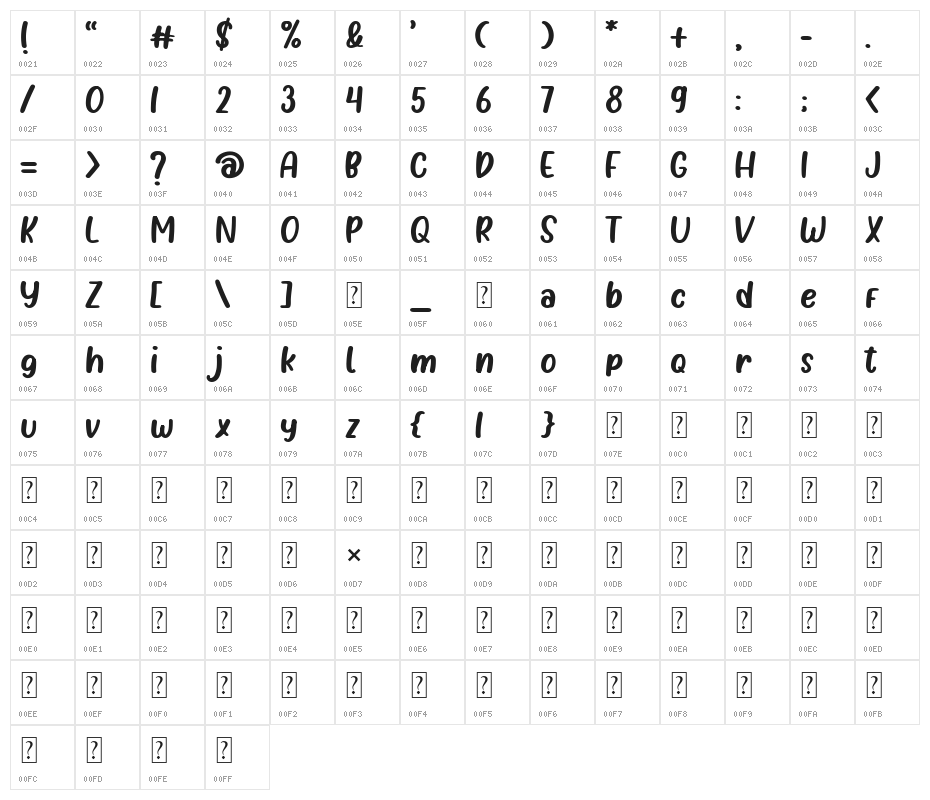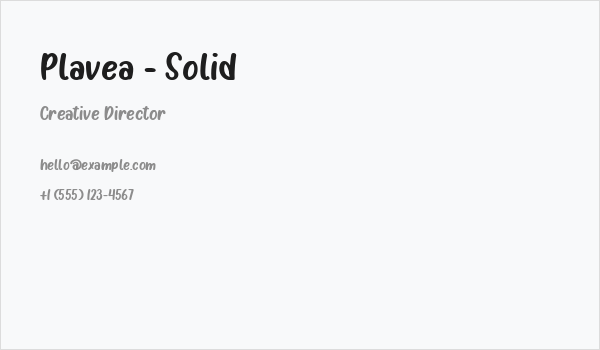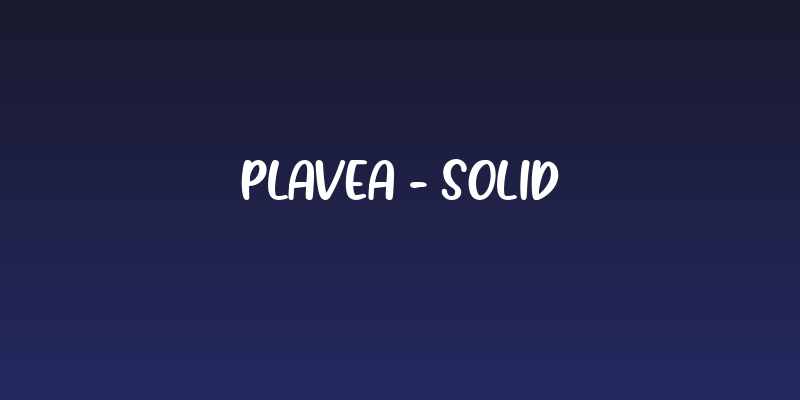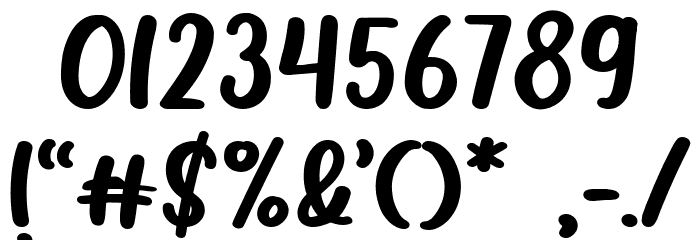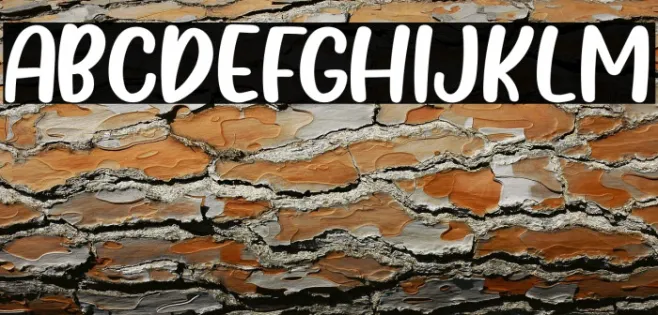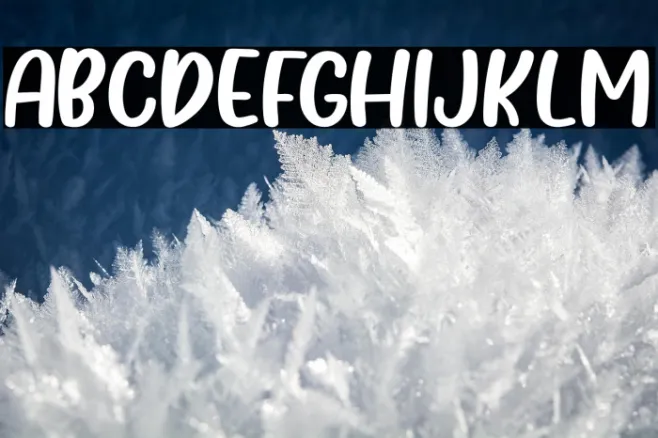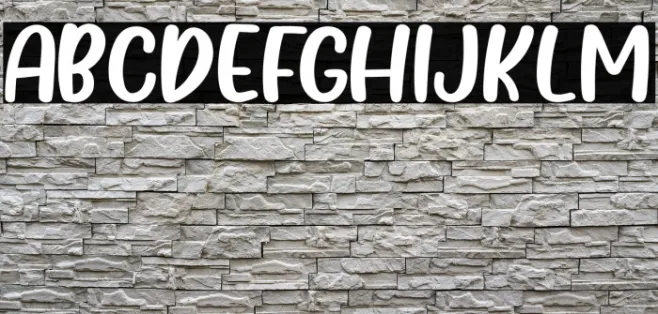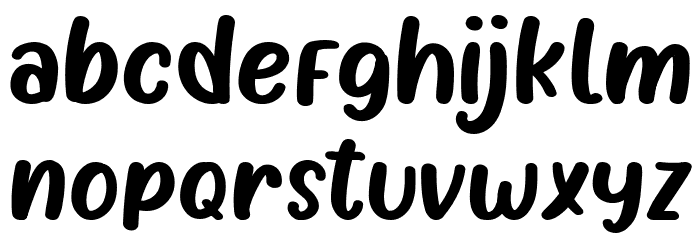
Plavea - Solid Font
Plavea - Solid Description
This font features a playful and bold handwritten style, characterized by its smooth, rounded edges and consistent stroke width. The letters are slightly slanted, giving a dynamic and casual feel. The uppercase and lowercase letters maintain a uniform height, enhancing readability while preserving a whimsical charm. The numerals and special characters are crafted with the same playful aesthetic, making them suitable for a variety of creative applications. This font's design is both approachable and versatile, ideal for projects that require a friendly and informal touch.
| Use Case | Headlines, Logos, Social Media |
| Proposed Projects | Ideal for greeting cards, children's books, playful branding, and social media graphics. |